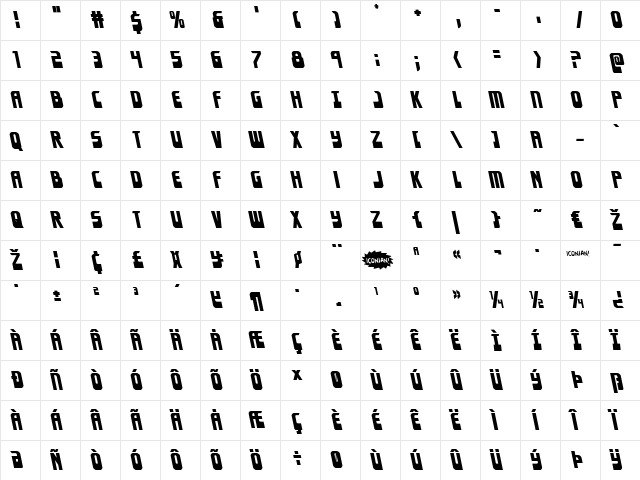
Eldebaran Leftalic Italic Font Preview
Eldebaran Leftalic Italic
Eldebaran Leftalic Italic Font Details
Design Context for Eldebaran Leftalic Typeface
Eldebaran Leftalic is a composed and adaptable typeface that performs quietly and consistently across a wide range of design contexts. Its italic angle brings a sense of urgency and motion to the letterforms.
Pro Tip: Use Eldebaran Leftalic for emphasis, pull quotes, and subheadings where its slanted energy can add rhythm to the layout.